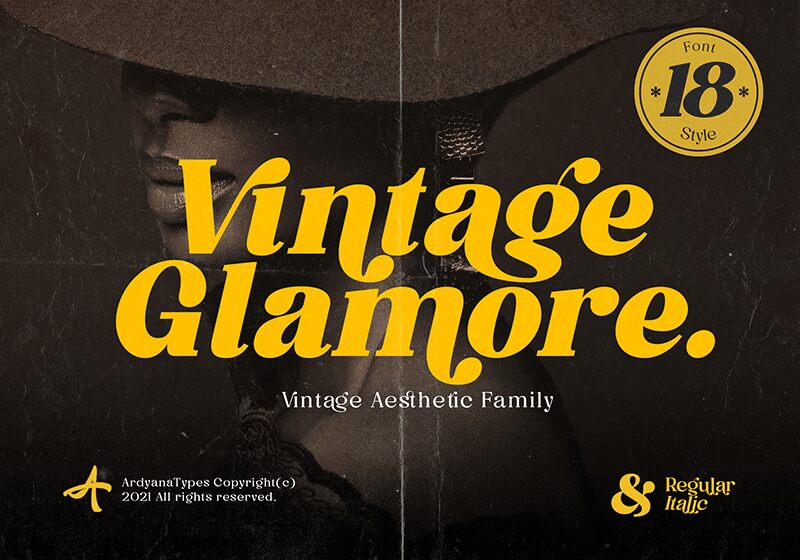
Vintage Glamore Italic, a creation by Ardyana Types, is a font that exudes an old-world charm with a dash of sophistication. Its serif style nods to the classics, while the fluidity of its italics adds an element of modern elegance. The strokes possess an artistic flair, reminiscent of vintage calligraphy, making it perfect for projects that demand a touch of glamour and nostalgia.
This font finds its strengths in contexts where style and subtlety are paramount. From the pages of historical novels to the branding of luxury goods and upscale events, Vintage Glamore Italic brings character and distinction. Whether gracing wedding invitations or boutique wine labels, this font delivers an unmistakable aura of refinement and grace.